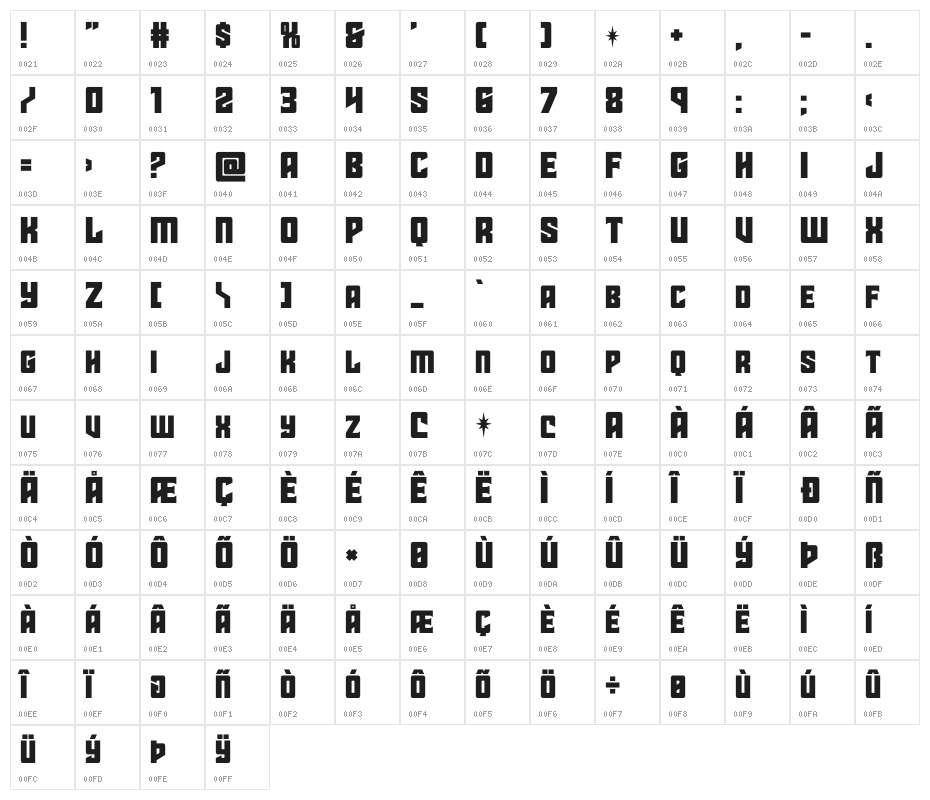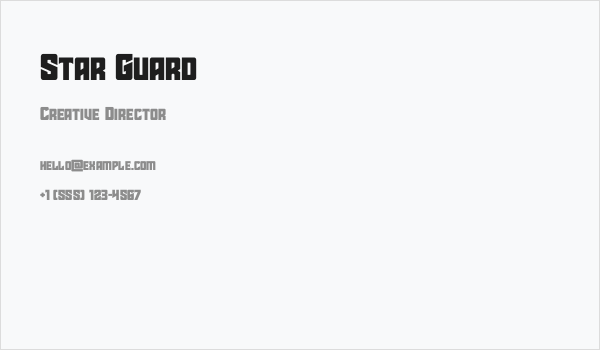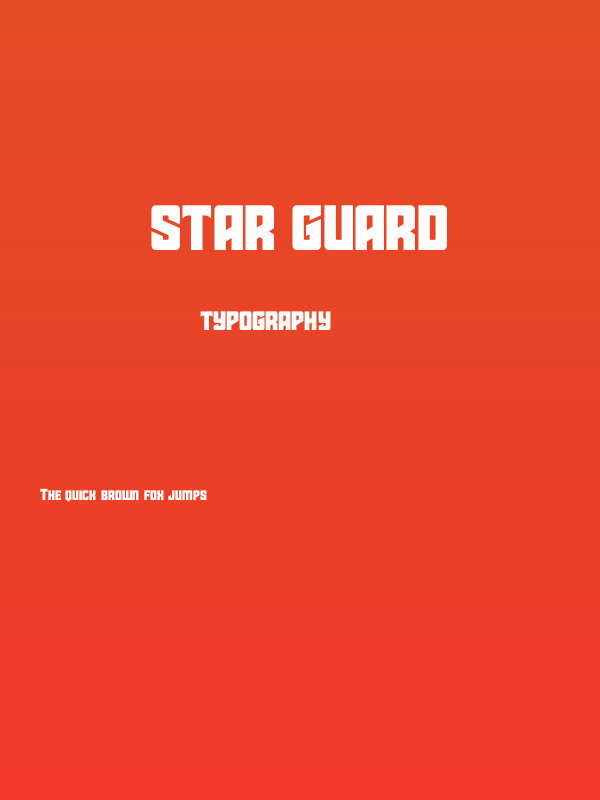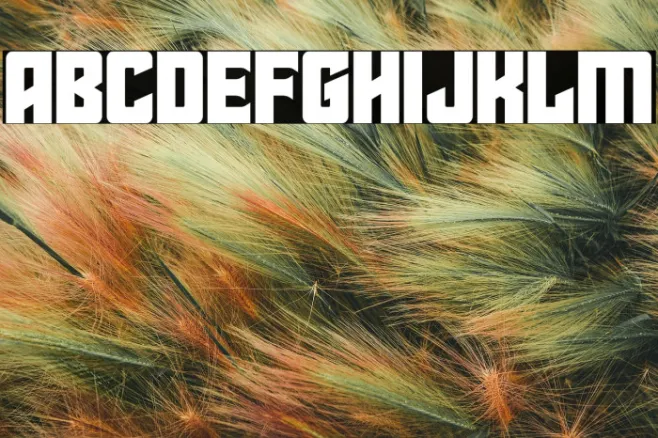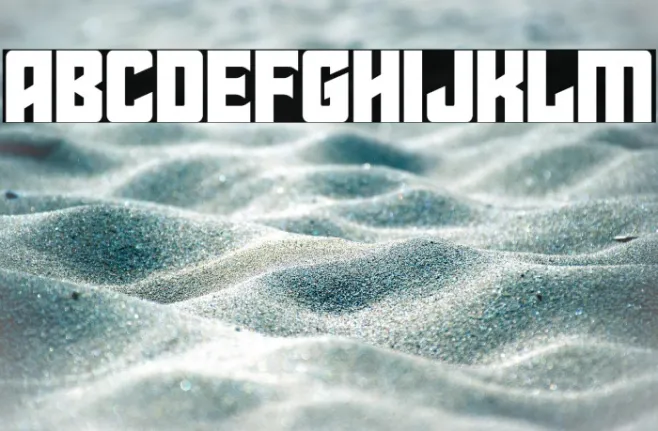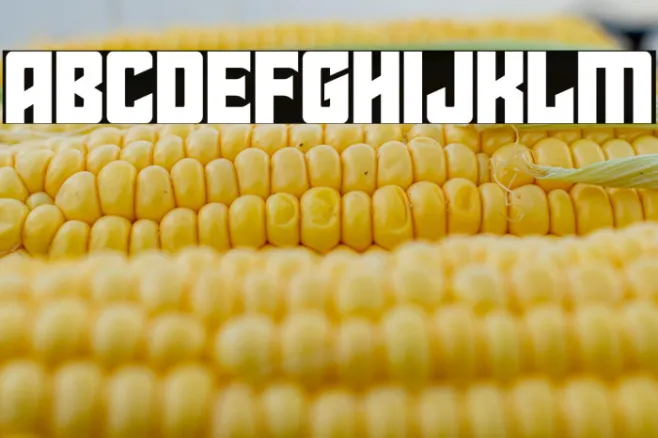
Star Guard Font
Star Guard Description
This font features a bold, geometric design with sharp angles and a futuristic aesthetic. The uppercase letters are blocky and robust, creating a strong visual impact. The lowercase letters maintain the same boldness, ensuring consistency across different text cases. Numbers and special characters follow the same angular style, contributing to a cohesive look. The font's design is reminiscent of sci-fi themes, making it ideal for projects that require a modern and edgy appearance. Its high contrast and thick strokes ensure excellent readability, even at smaller sizes.
| Proposed Projects | Ideal for sci-fi movie posters, video game titles, branding for tech companies, and futuristic-themed events. |